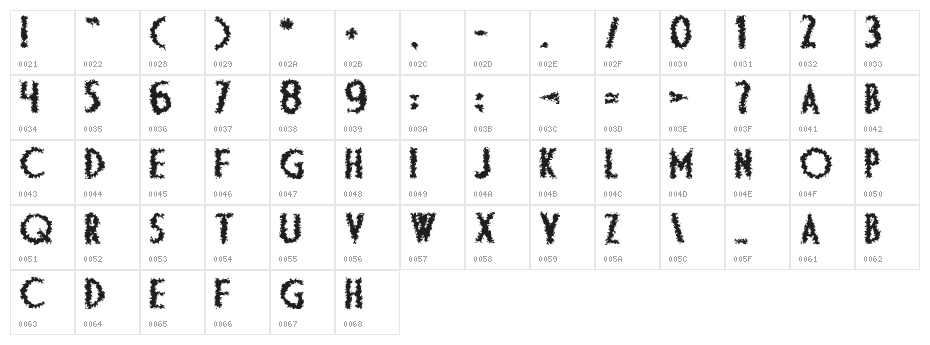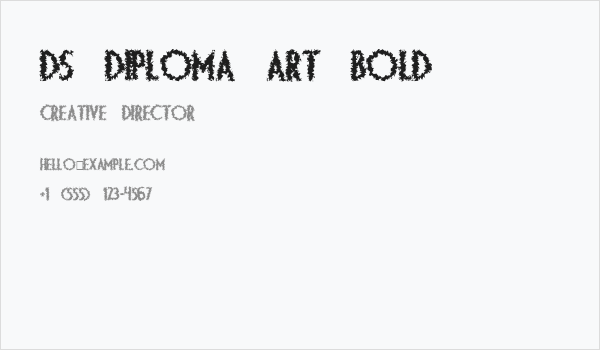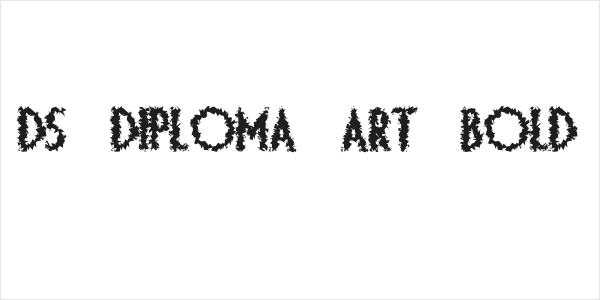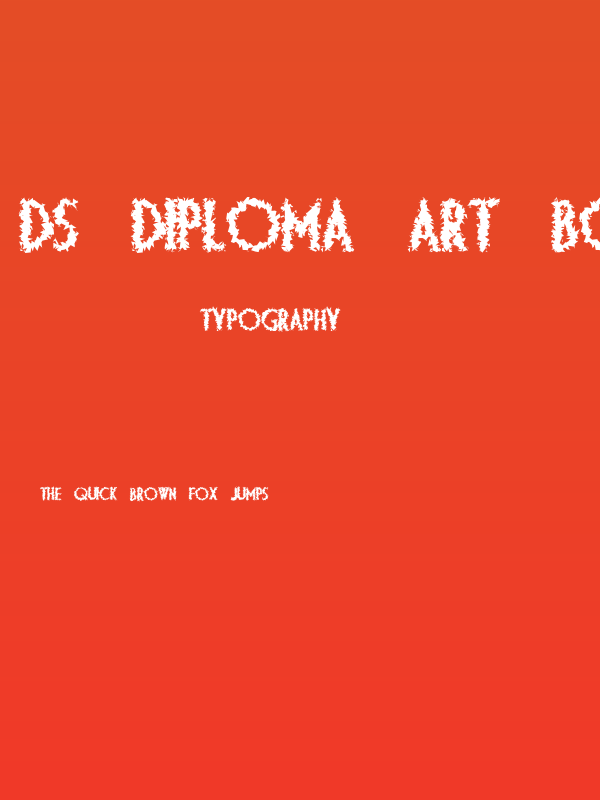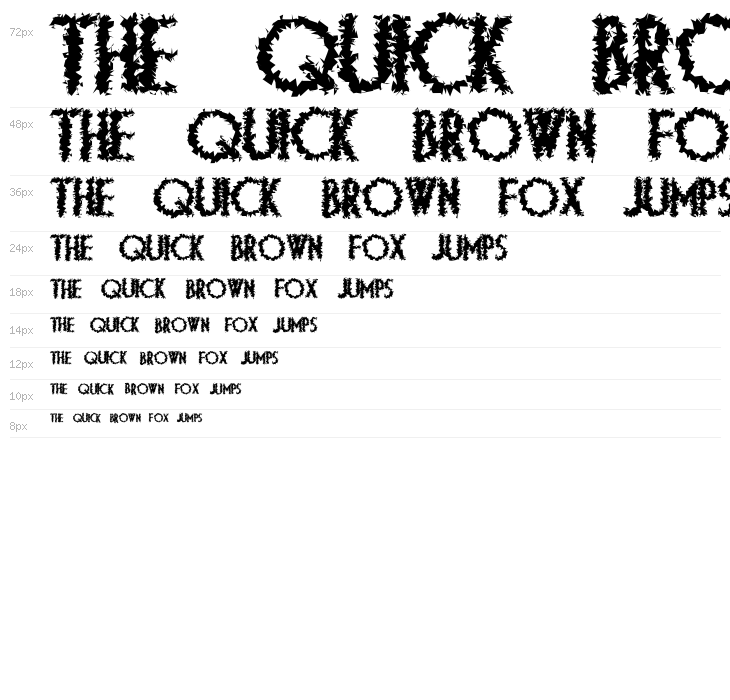
DS Diploma Art Bold Font
DS Diploma Art Bold Description
This font features a bold and jagged design, with each character appearing as if it is constructed from sharp, thorn-like elements. The edges are irregular and spiky, giving it a dynamic and aggressive appearance. The uppercase and lowercase letters maintain a consistent style, with the numbers and special characters following the same aesthetic. This font is highly decorative, making it stand out with its unique and edgy look. The overall impression is one of intensity and boldness, suitable for projects that require a strong visual impact.
| Proposed Projects | Ideal for Halloween-themed designs, edgy posters, album covers, or any project requiring a dramatic and eye-catching typeface. |